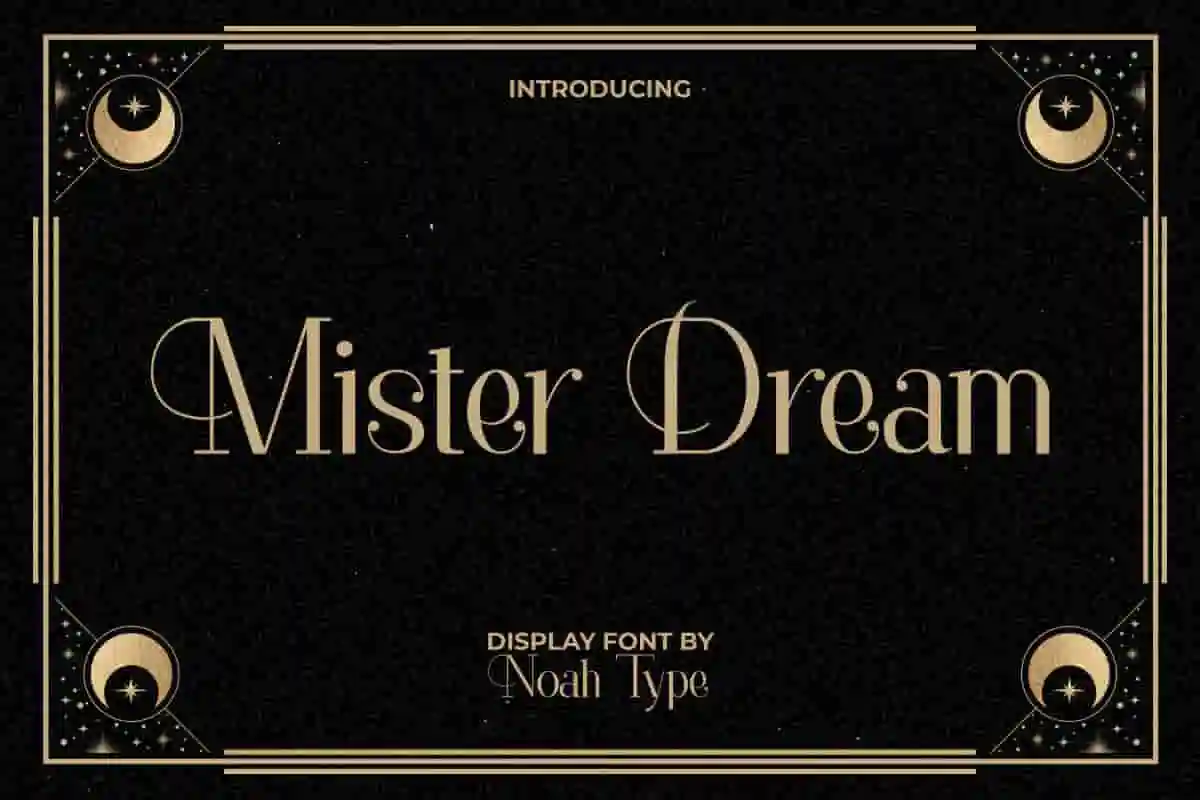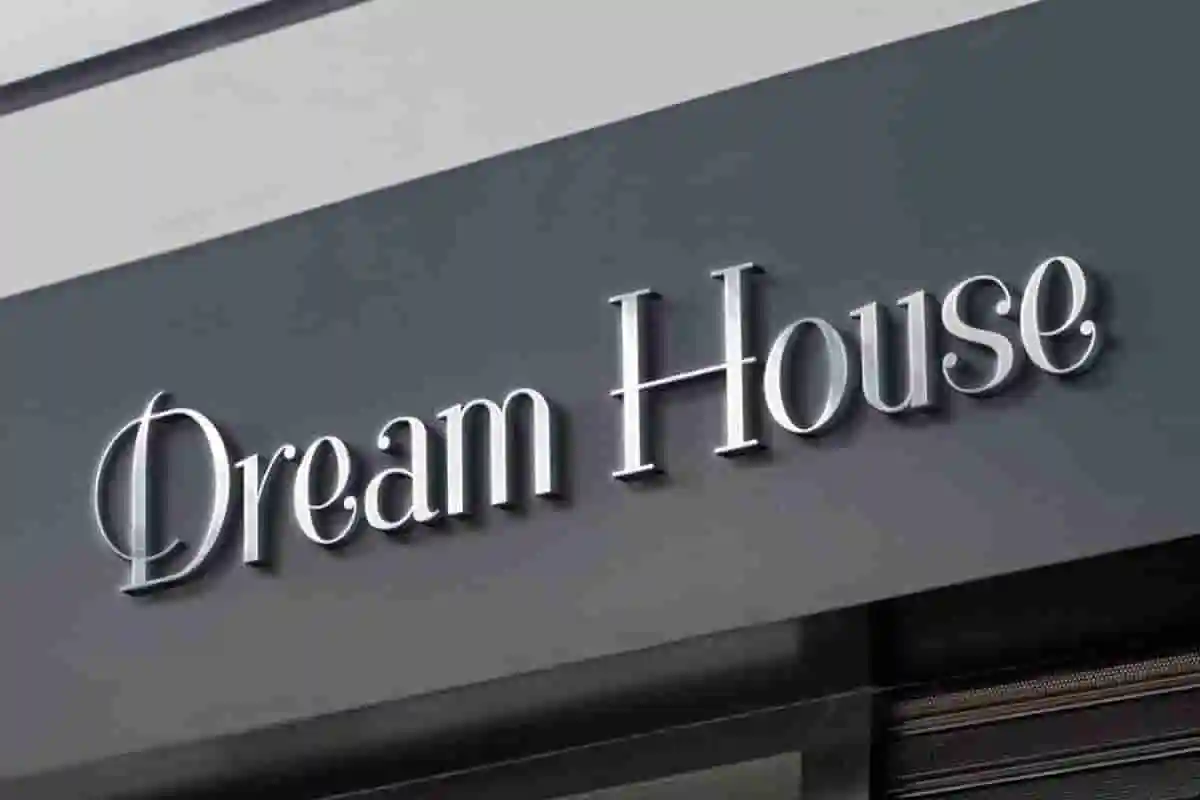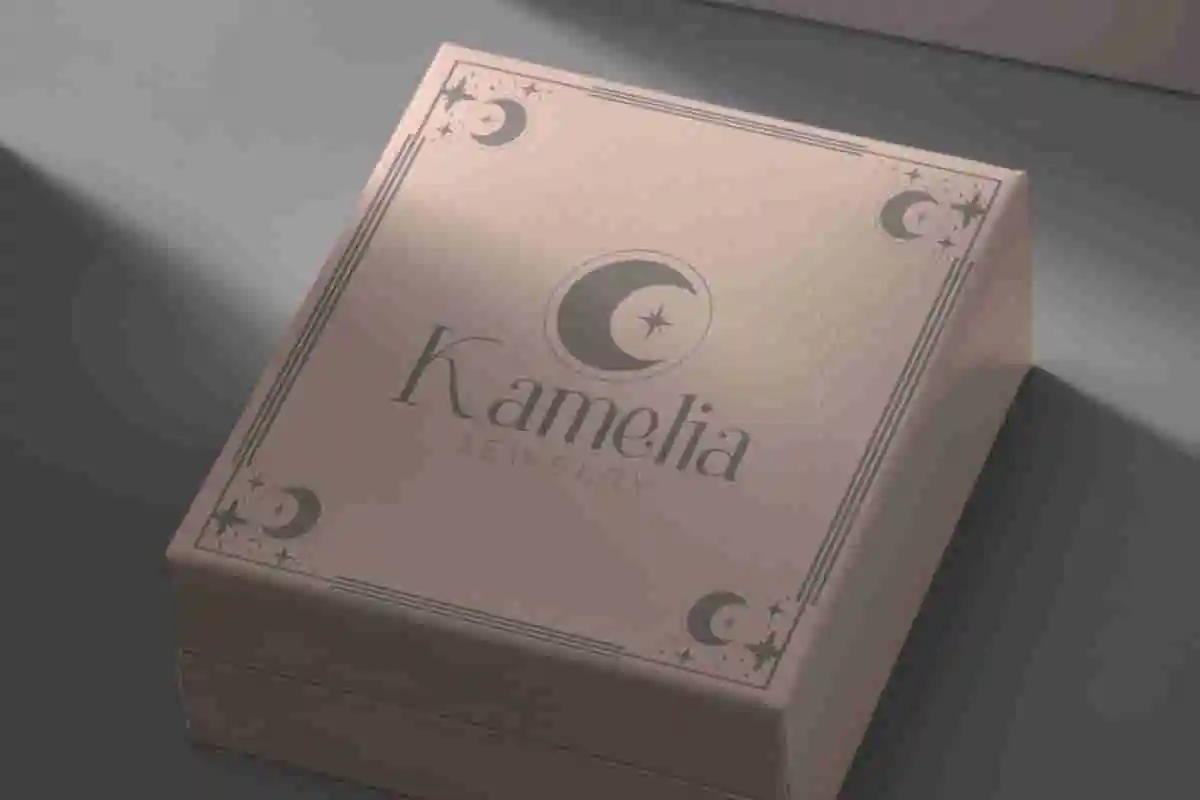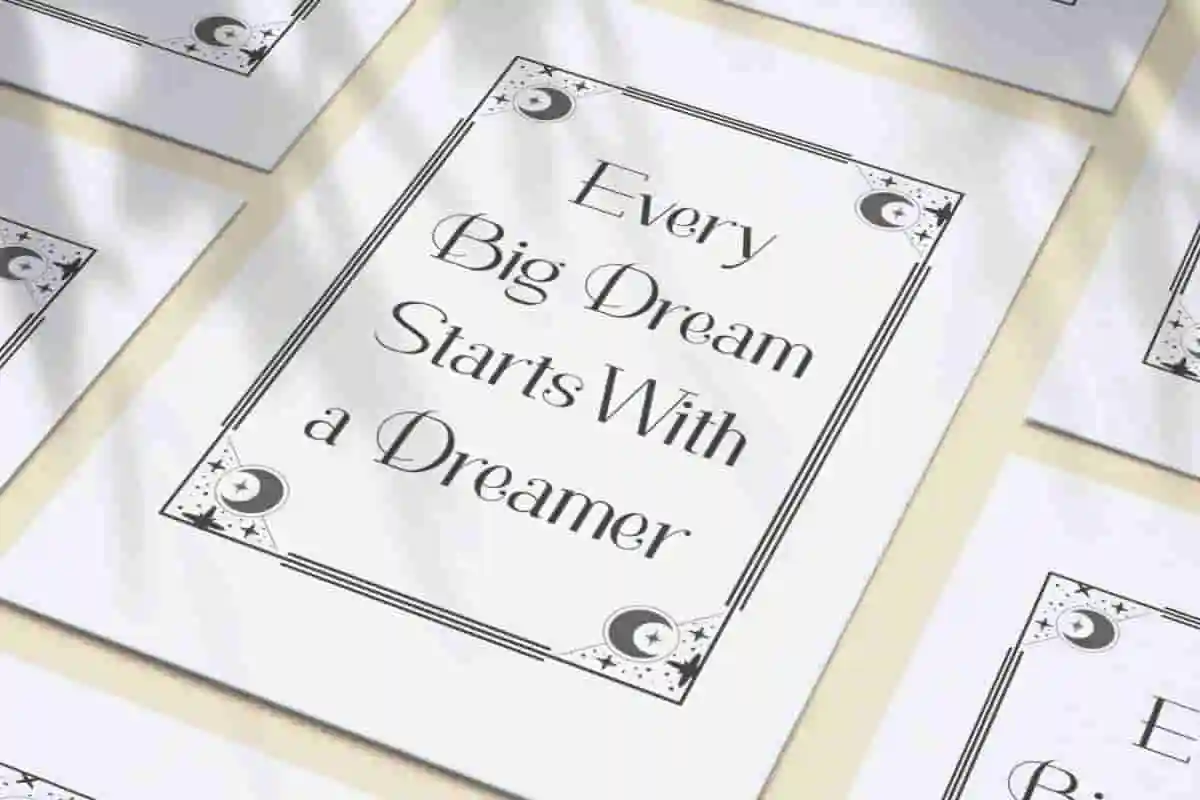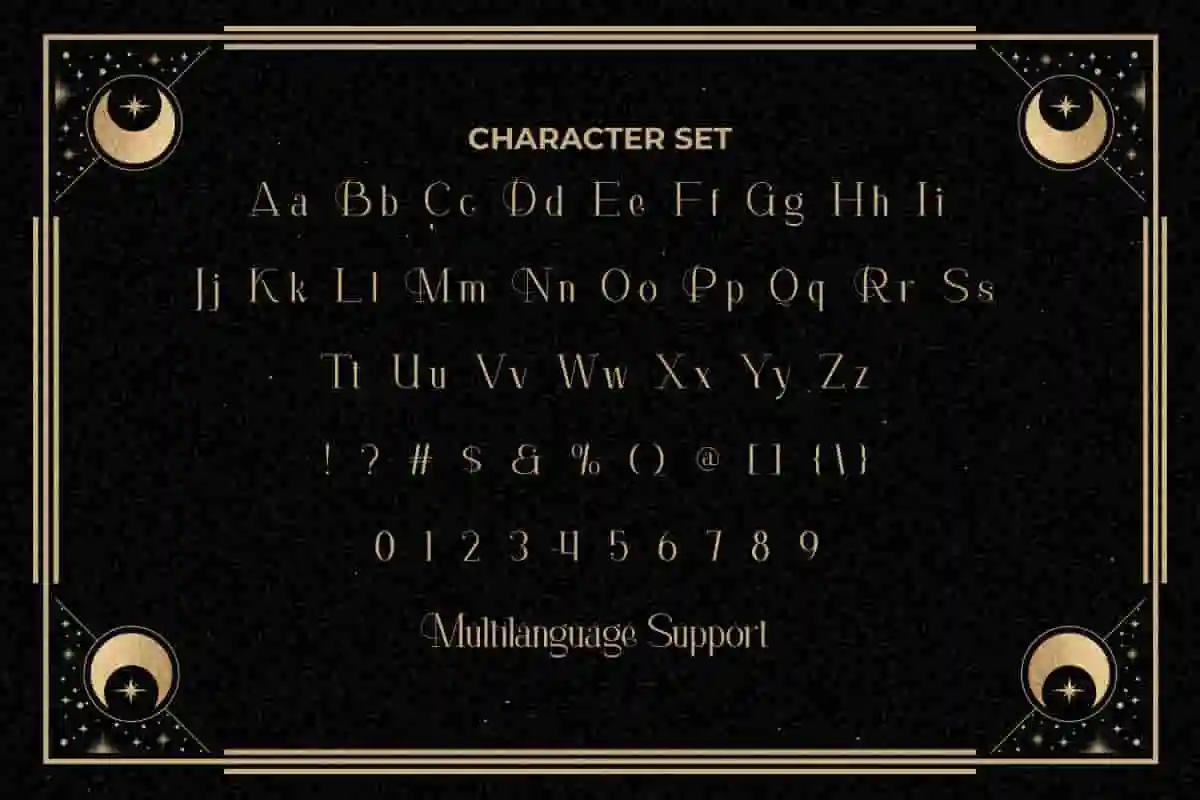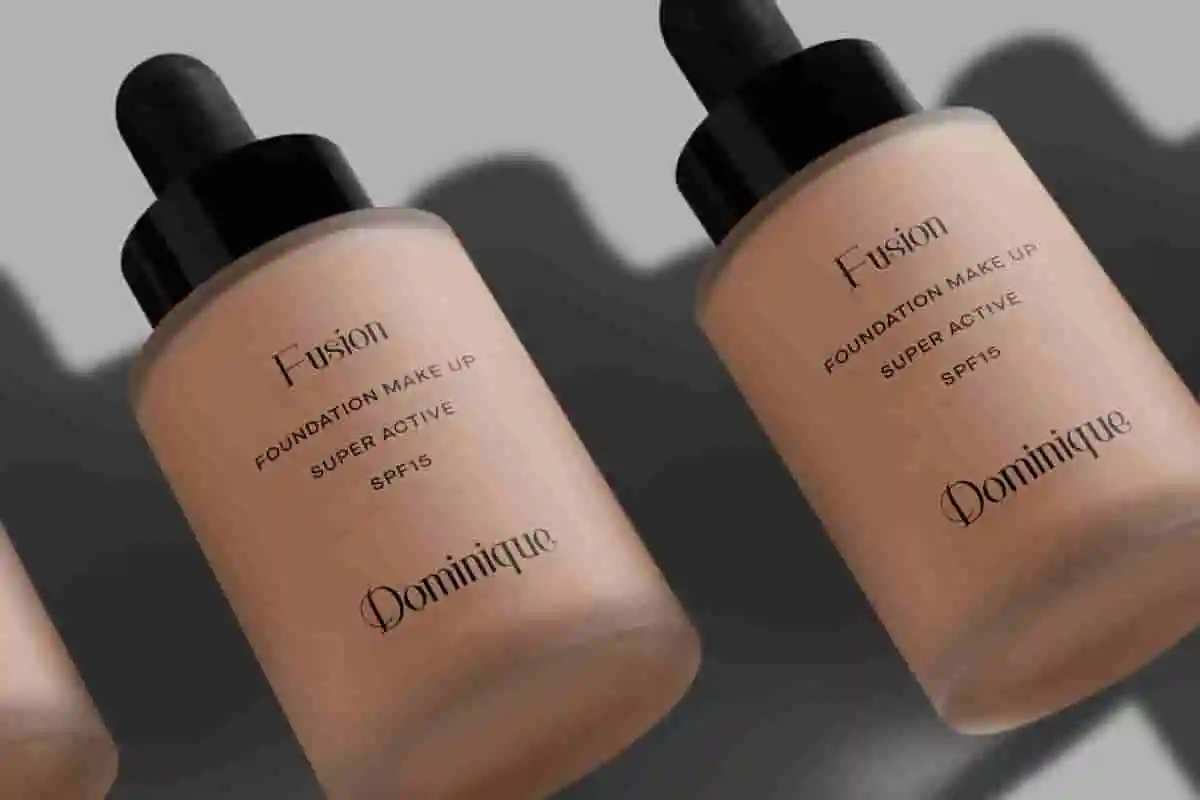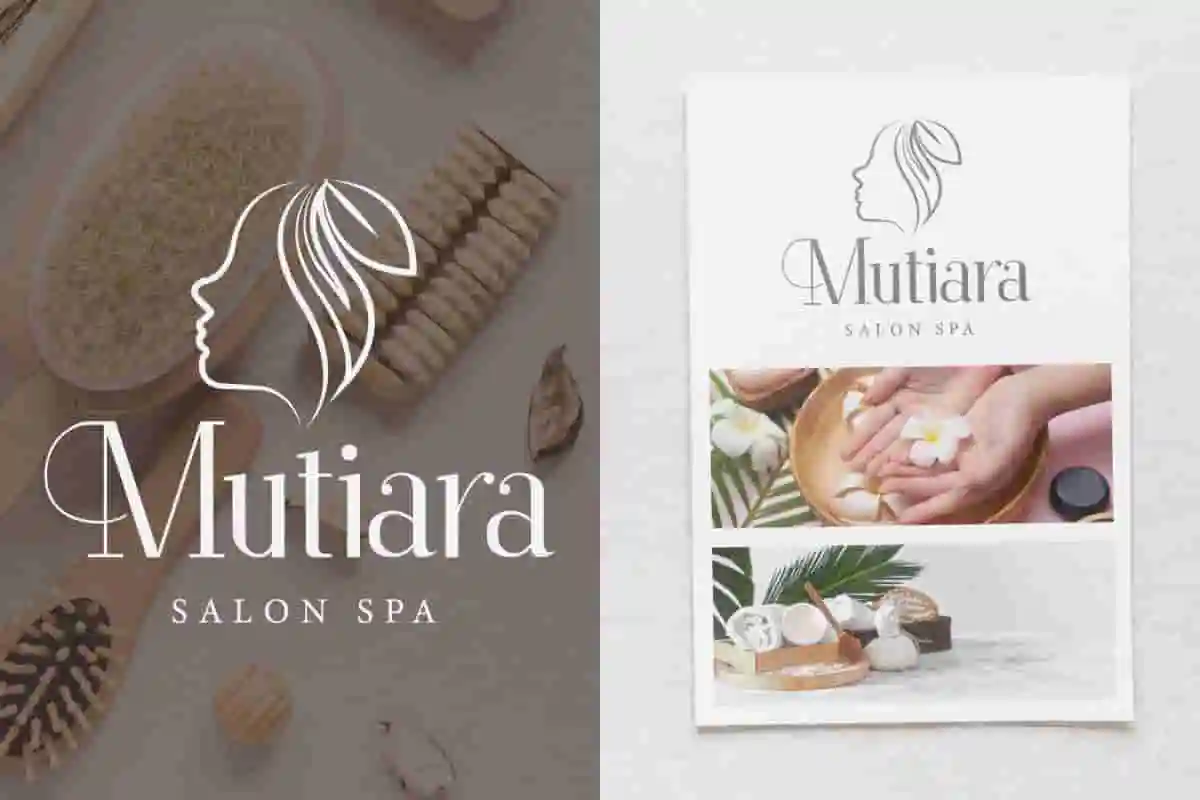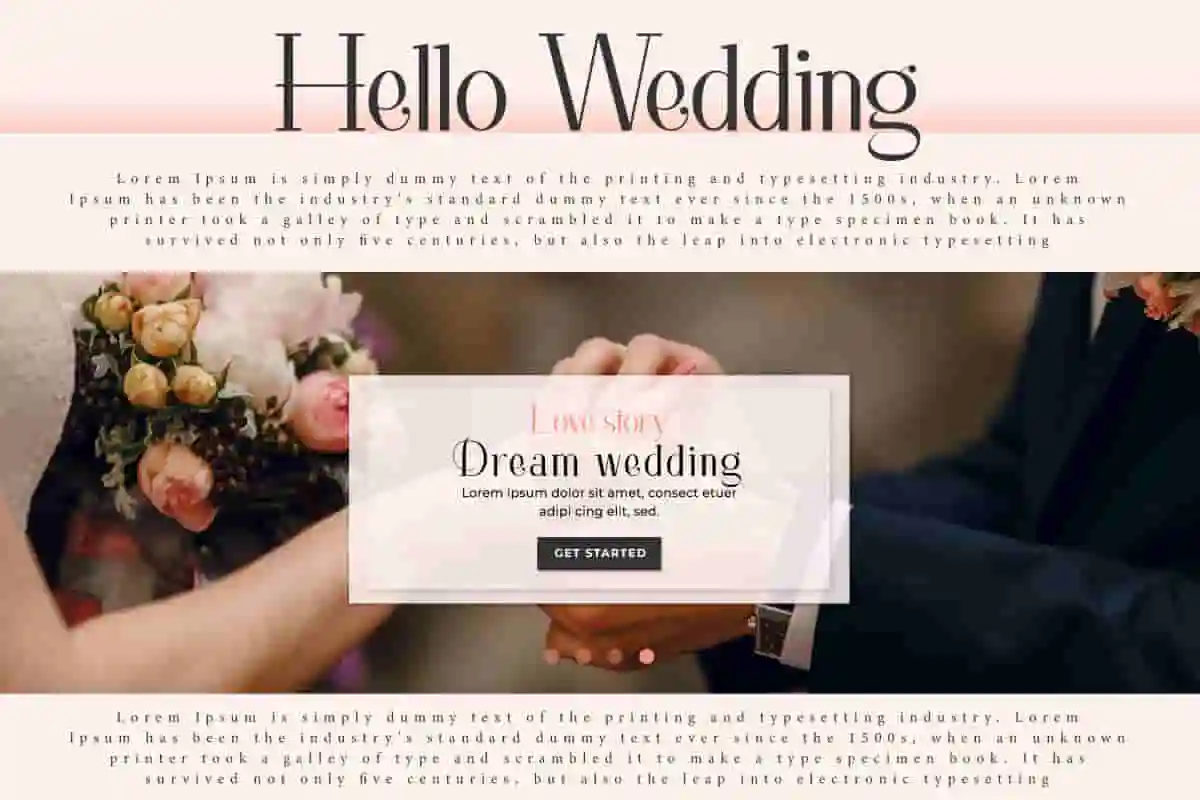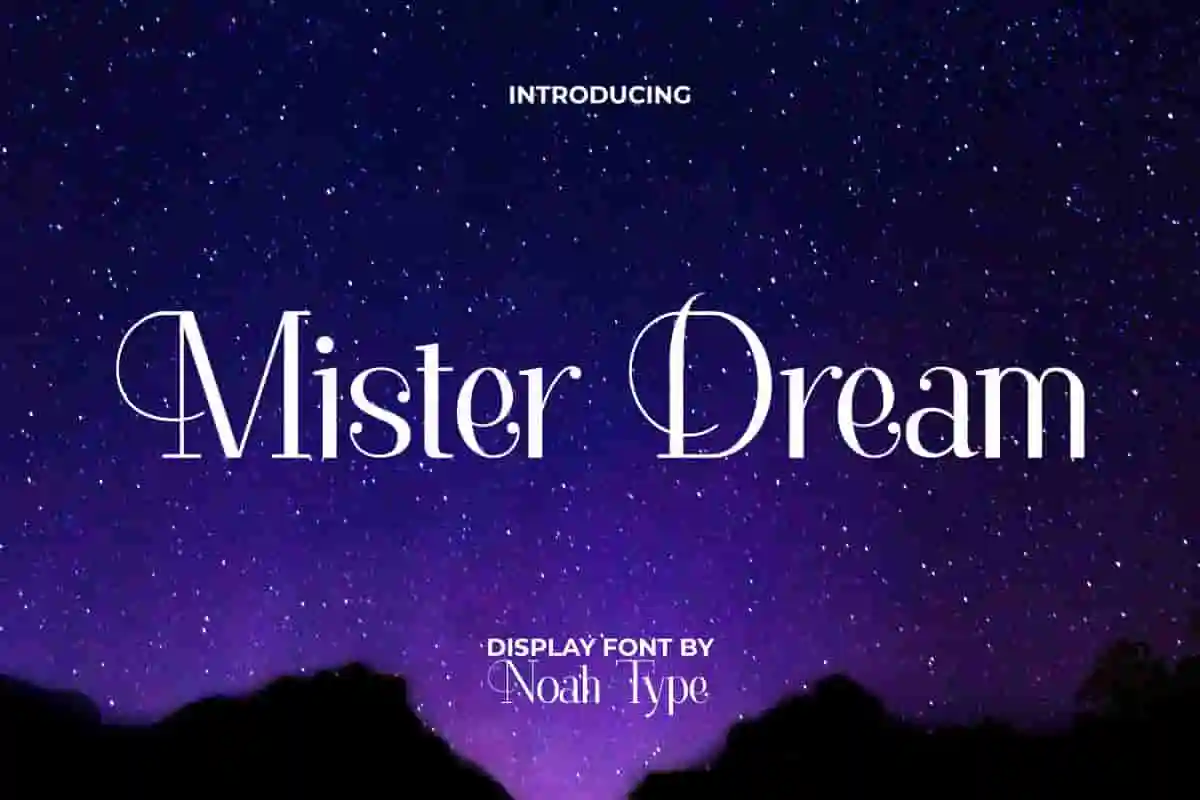
Mister Dream Font is a beautiful luxury display font, created by NoahType. This font is a combination of beautiful thin lines with a unique touch to each end of the letters. It will be good for any designs, such as brand image, business card, catalog, cover, custom design, invitation, label, product packaging, quote, signage, stationery, web, and more!
Mister Dream Font includes full set of Uppercase and Lowercase Basic Characters, Numerals and Punctuation. The characters of this font will give fancy and stylish looks and perfect choice for many industries, such as advertisement, beauty product, café, event or wedding organizer, fashion, jewelry, perfume, printing, publishing, spa and salon, etc.